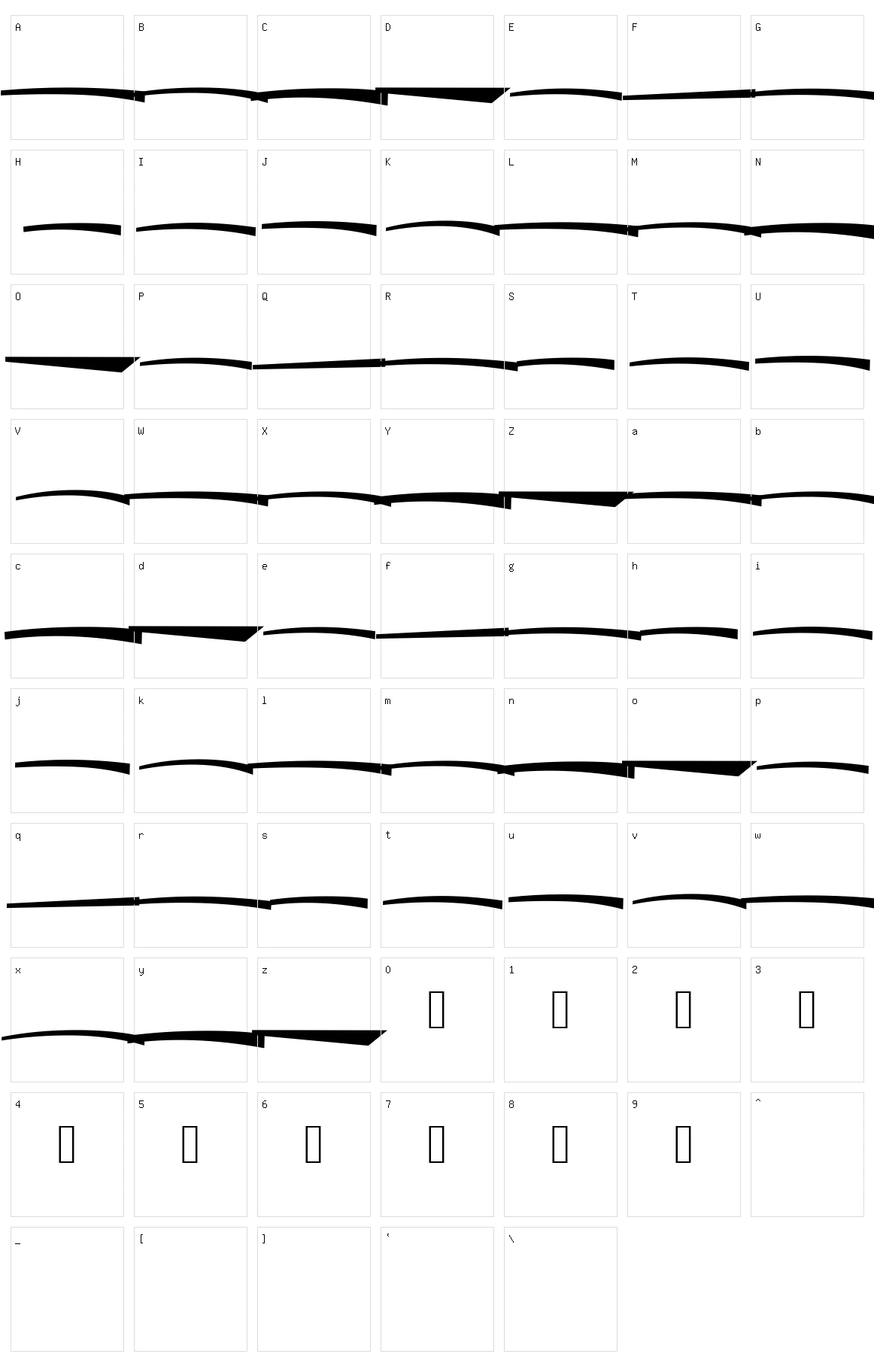
The free font Yackien is carefully designed by Java Pep, showcasing a thoughtful balance of creativity and usability and falls under the Old-School font style. When you download the ZIP file, it contains only 91.6 KB of font files, making it lightweight and quick to download. Please review the license details below to understand permitted usage and distribution rights. If license information is not available, we recommend using this font for personal projects only or contacting the author directly for commercial usage permissions.